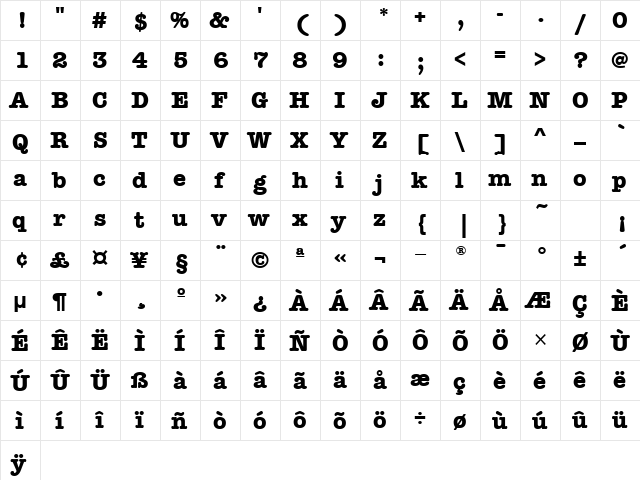
AmTypewriterITCTT Bold
| Foundry | International Typeface Corporation |
| Designer | Tony Stan/Joel Kaden |
Design Context for AmTypewriterITCTT Typeface
AmTypewriterITCTT brings the precise, column-aligned rhythm of monospaced typography to designs that value technical clarity and systematic order. The heavy weight commands attention and anchors typographic hierarchies.
Pro Tip: Pair AmTypewriterITCTT with a proportional sans for UI contexts where code-style labels and regular body copy need to coexist.